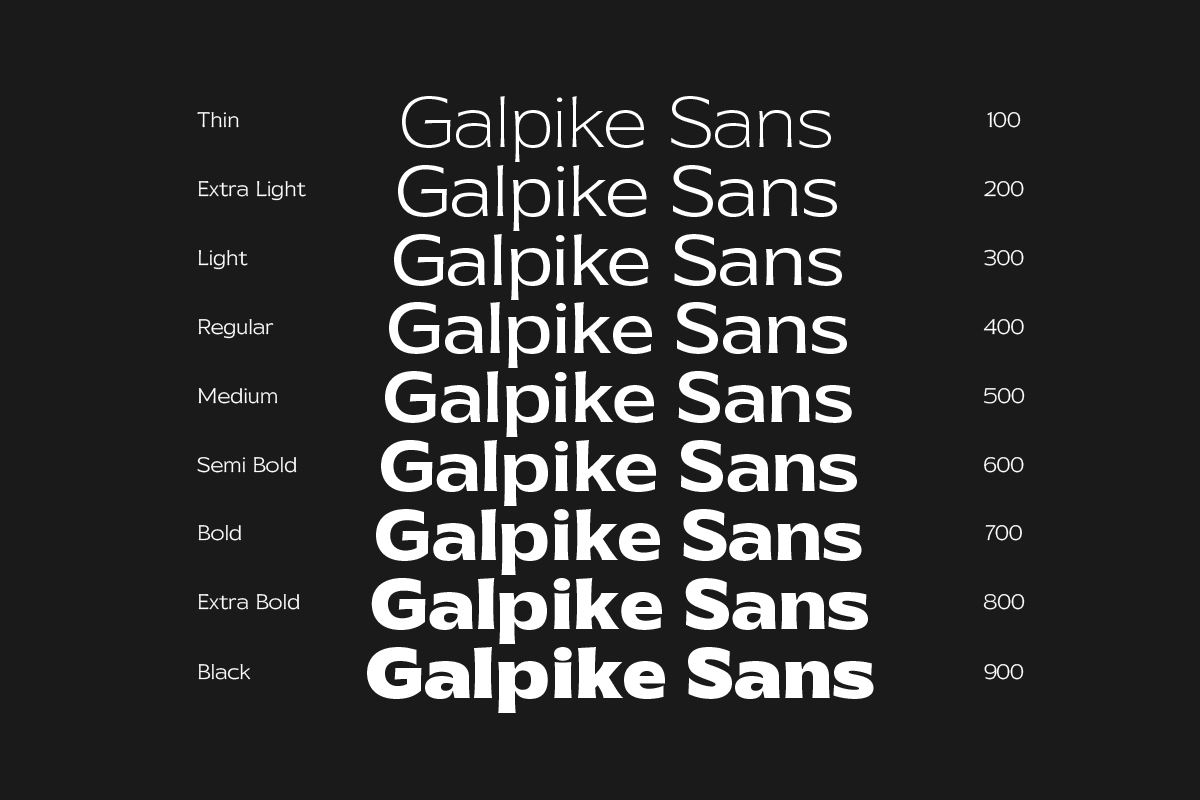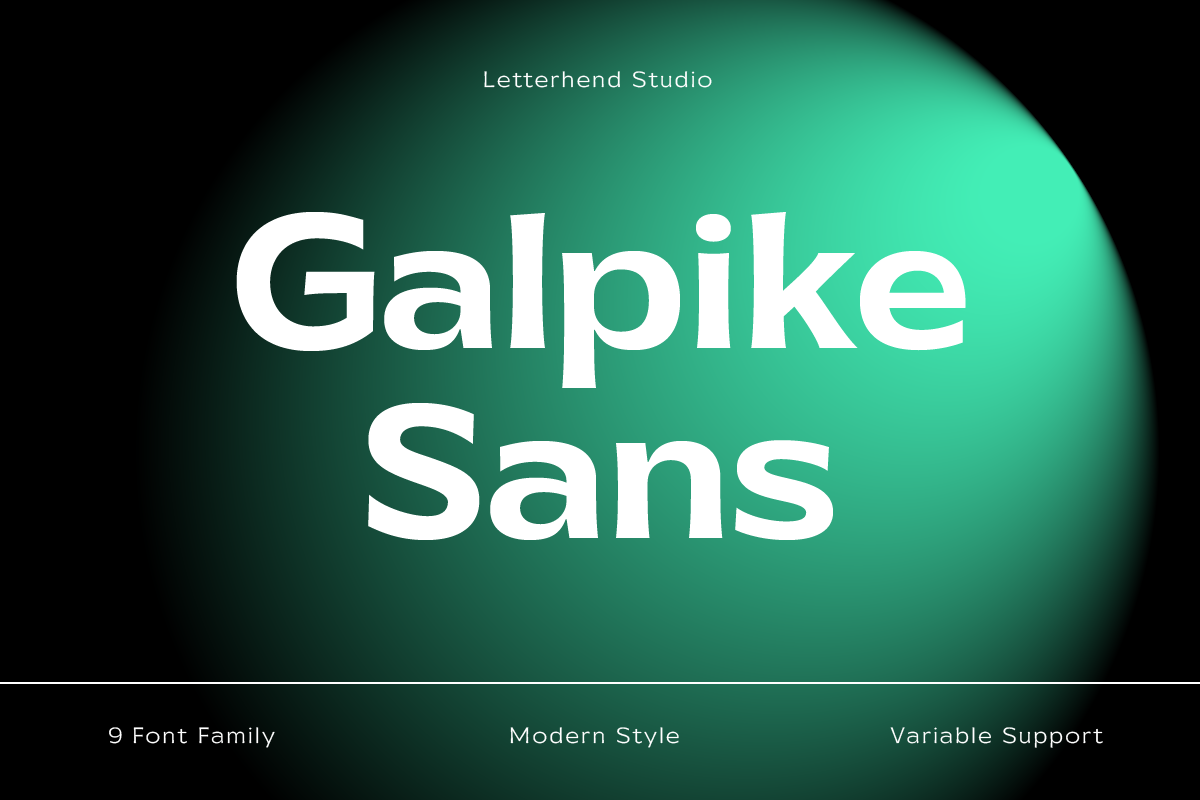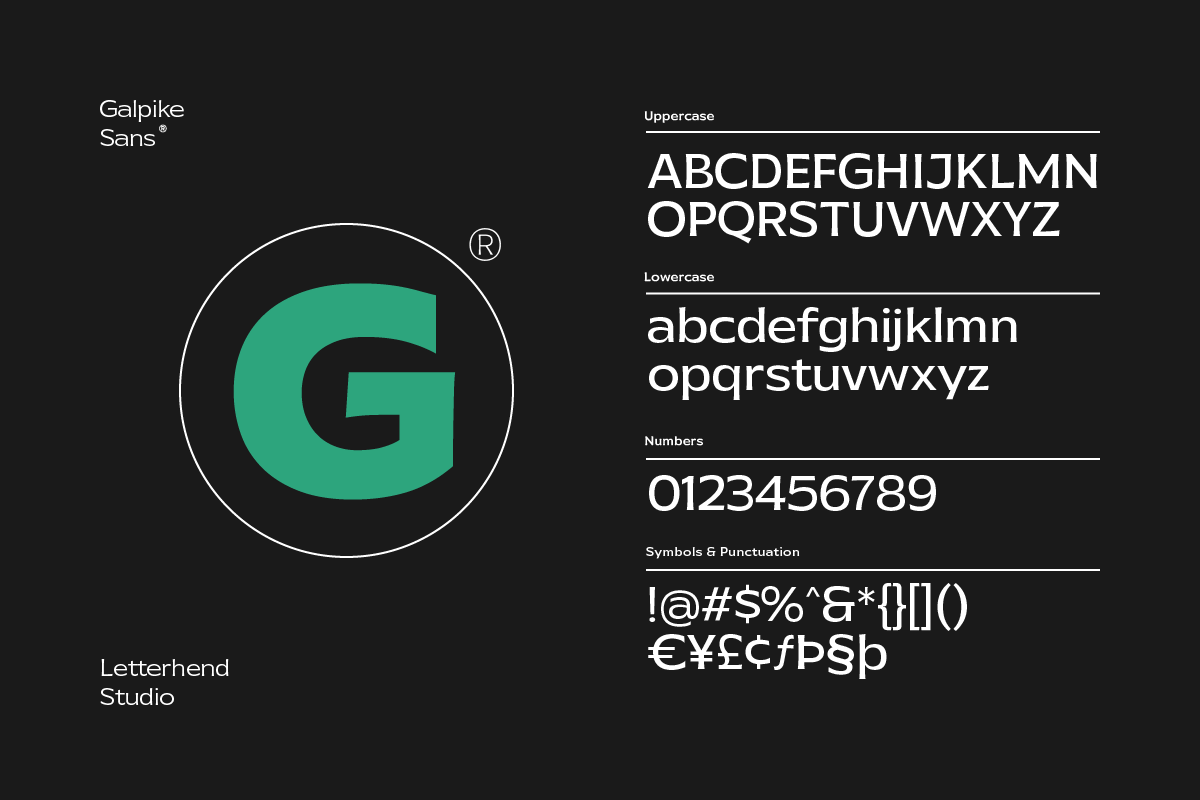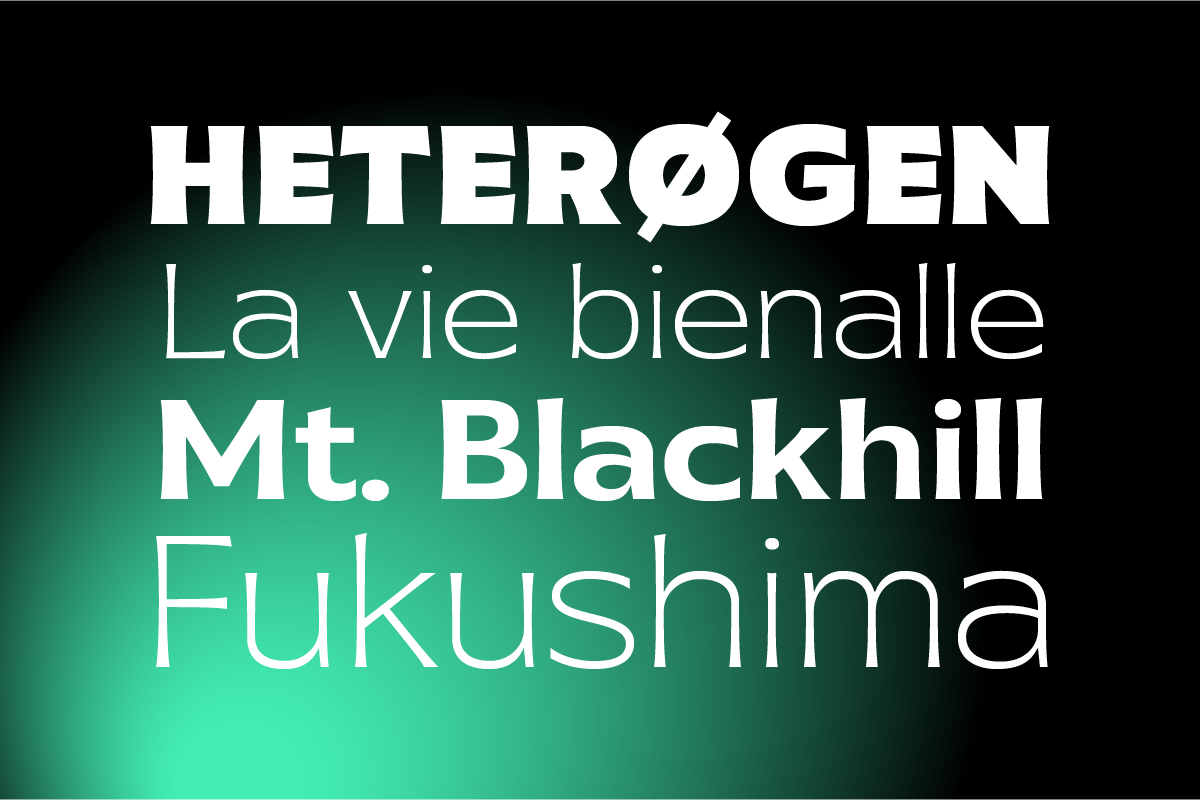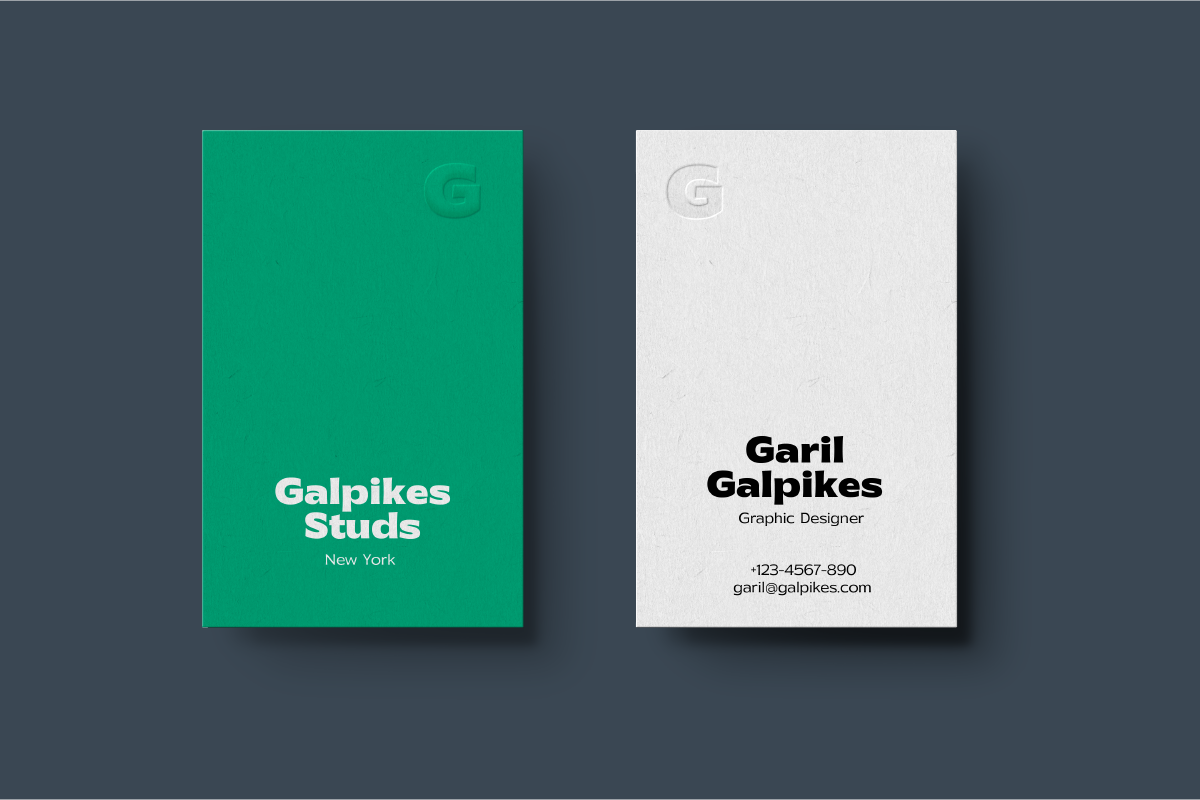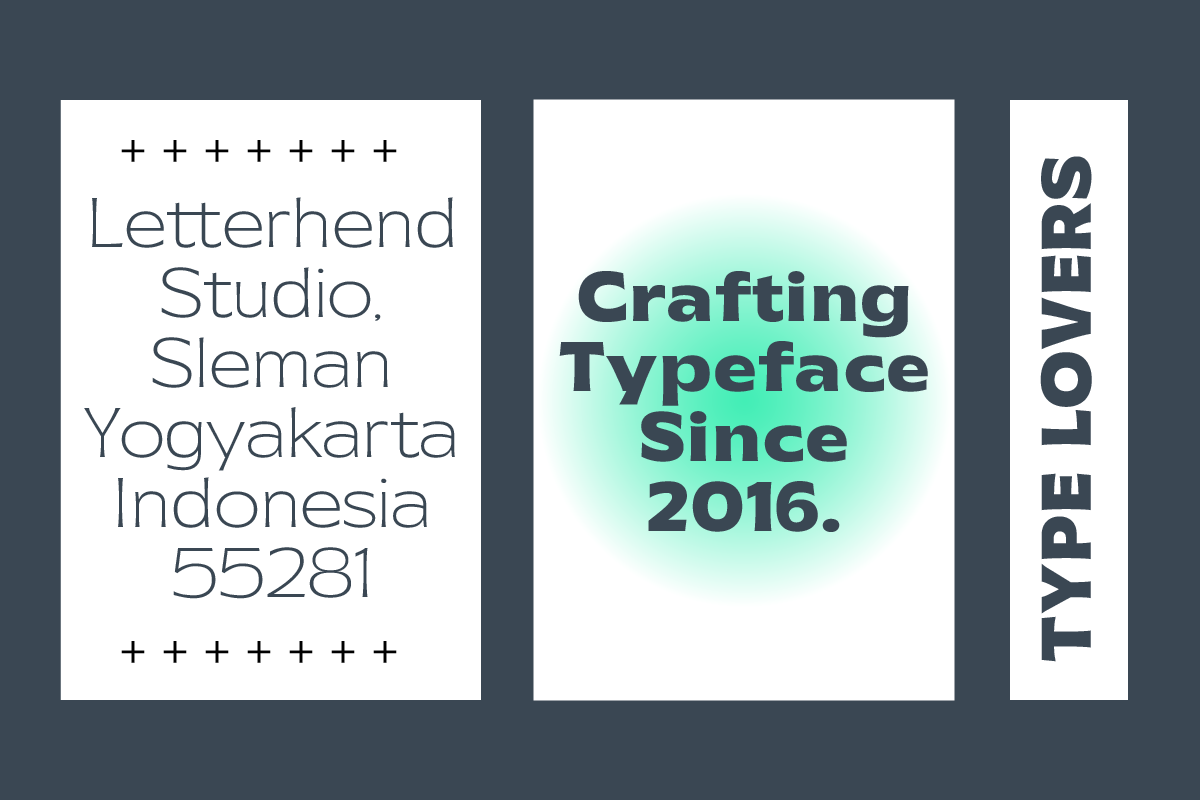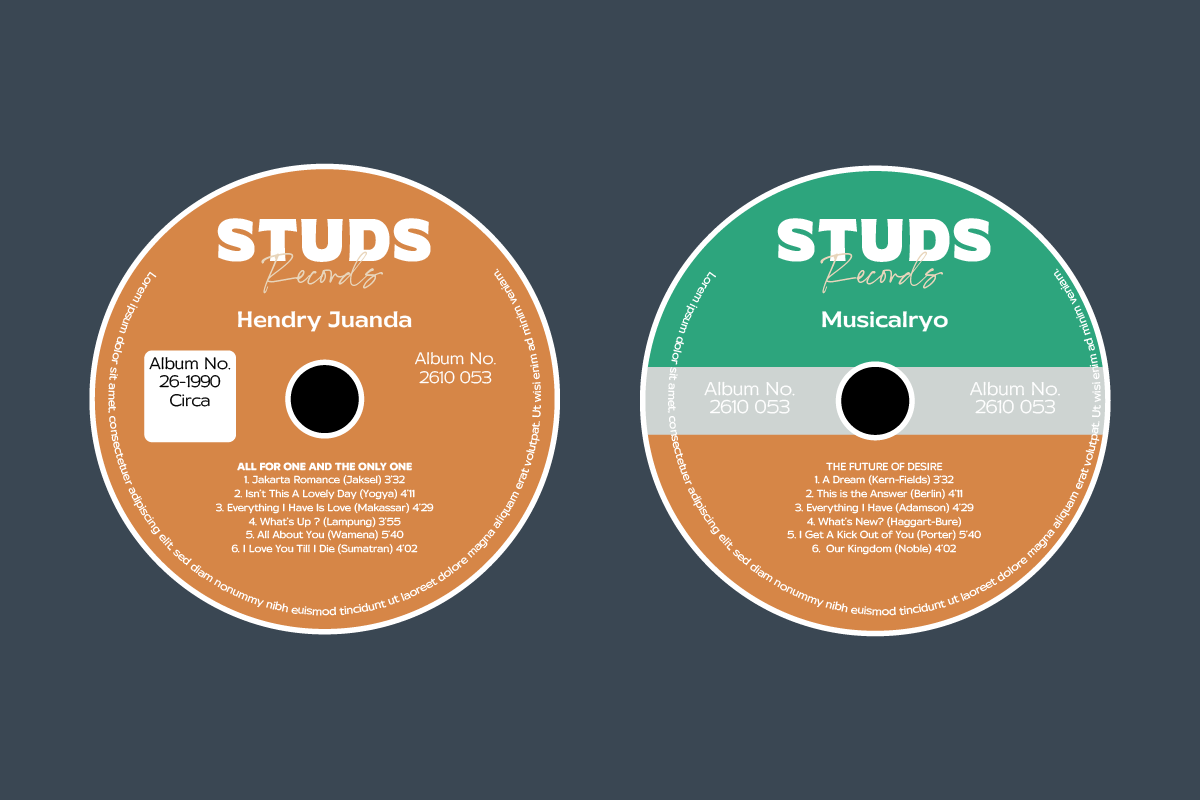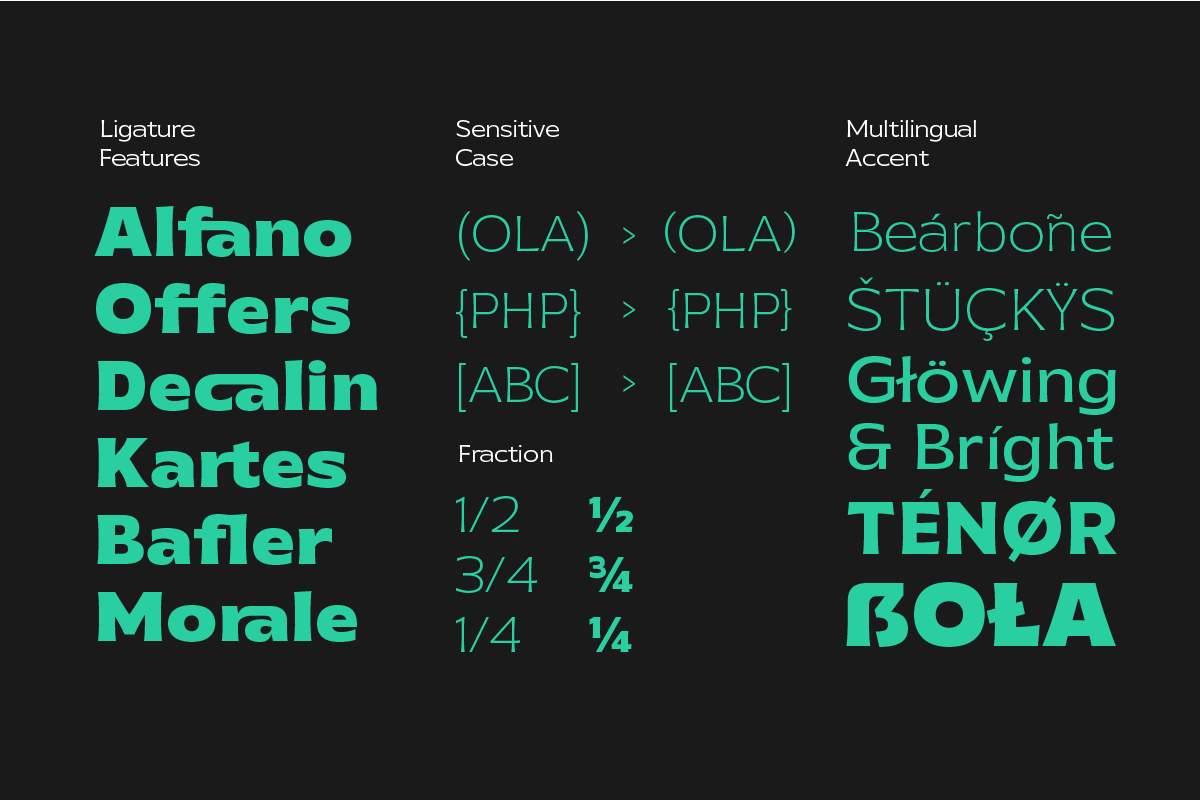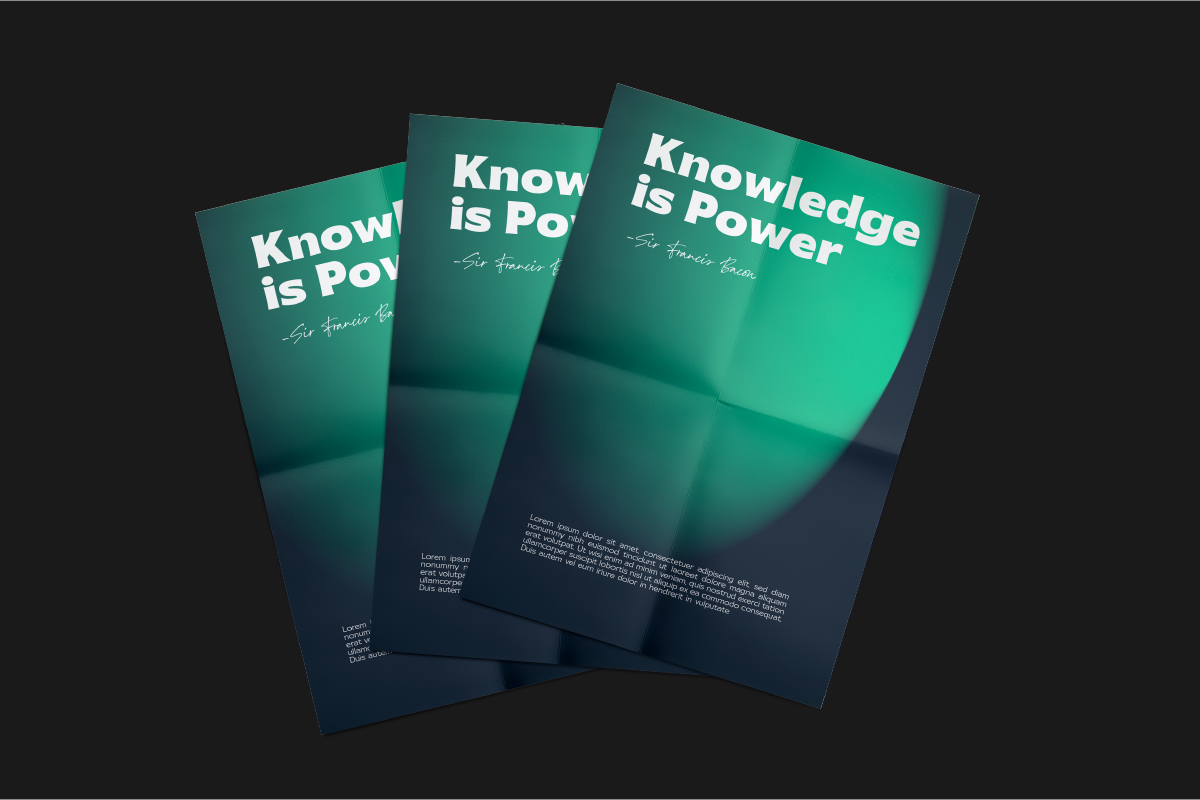
Galpike Sans - Variable Font
Galpike Sans is a neat and clean variable font. The typeface is versatile to blend in your design- with 9 weight, ranging from regular, medium, thin, bold, semibold, extrabold, light, extralight and black & 18 styles + variable type to touch a lot of personality. Perfect anywhere you need a right finas touches for branding, publishing, titles, book, magazine , and use on UI/UX design.
- Variable Font
- 9 weight & 18 Style